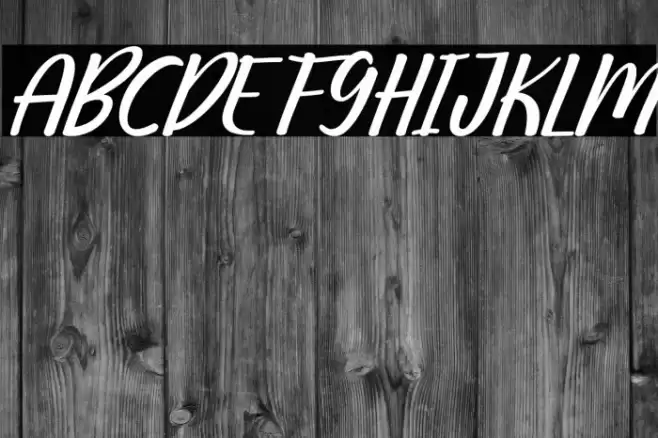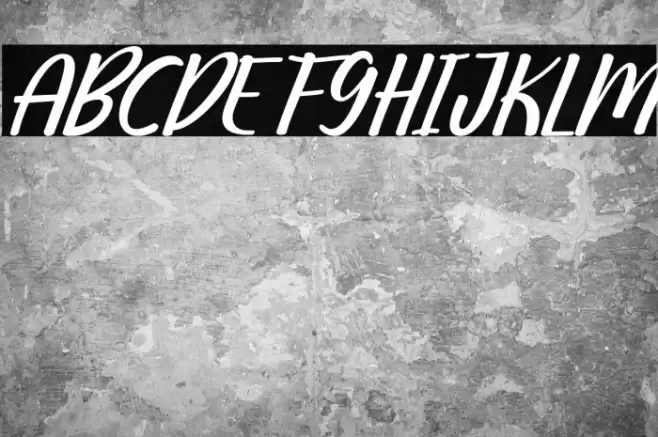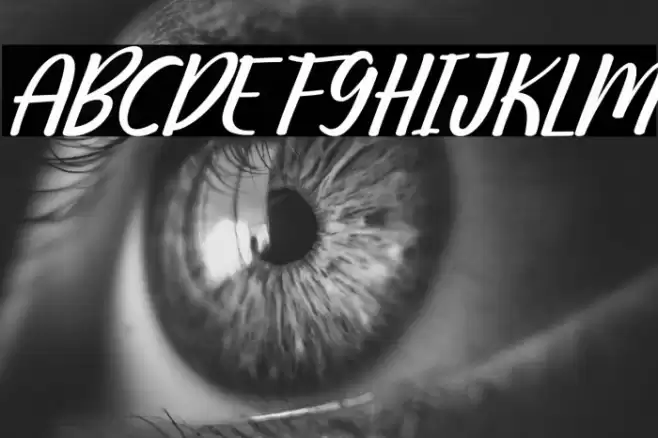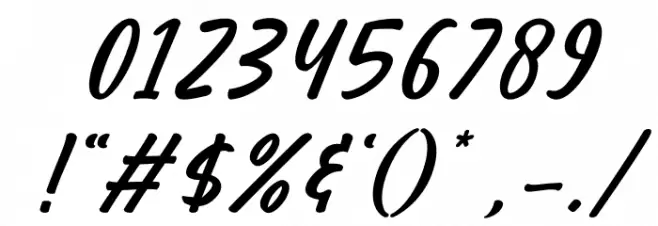
Amatemora Italic Font
Amatemora Italic Description
This font features a dynamic and flowing script style, characterized by its elegant and cursive letterforms. The strokes are smooth and connected, giving it a handwritten appearance that is both stylish and sophisticated. The uppercase letters are bold and prominent, while the lowercase letters maintain a consistent flow, enhancing readability. The numerals and special characters are designed to complement the overall aesthetic, making it versatile for various design needs. Its italic nature adds a sense of movement and grace, making it suitable for creative and expressive projects.
A dynamic and flowing script font with elegant, cursive letterforms from Uncategorized fonts.